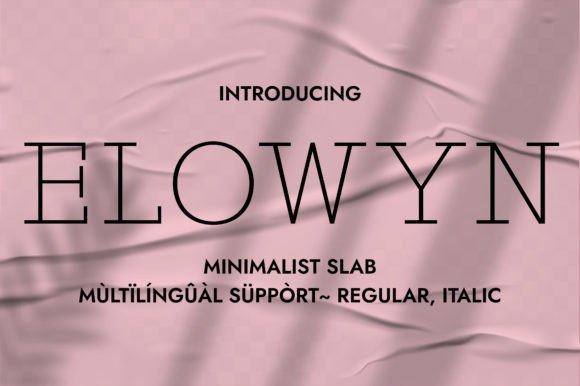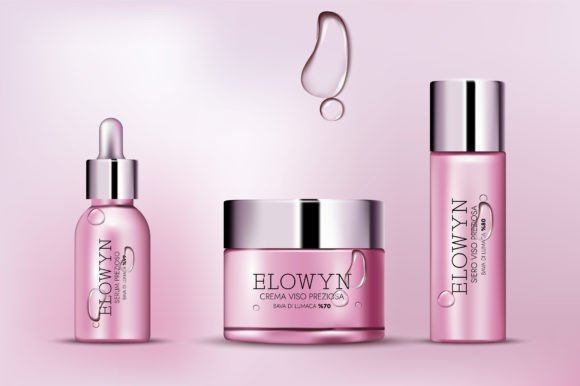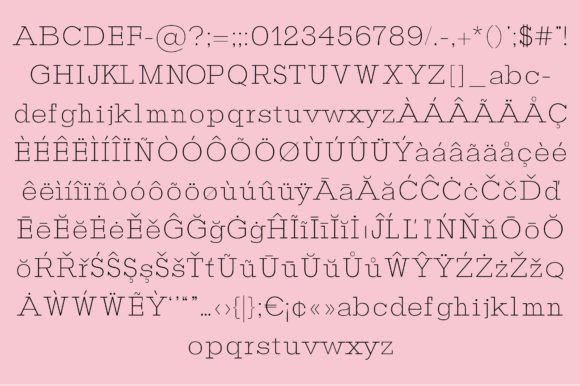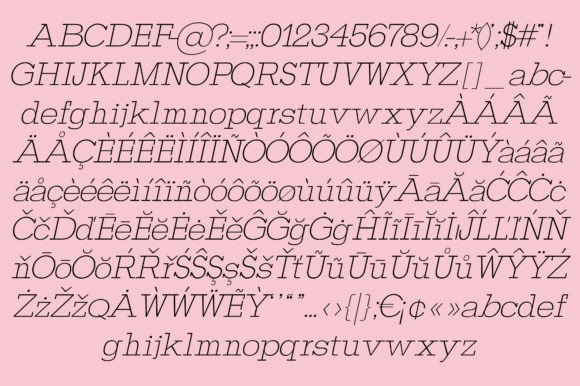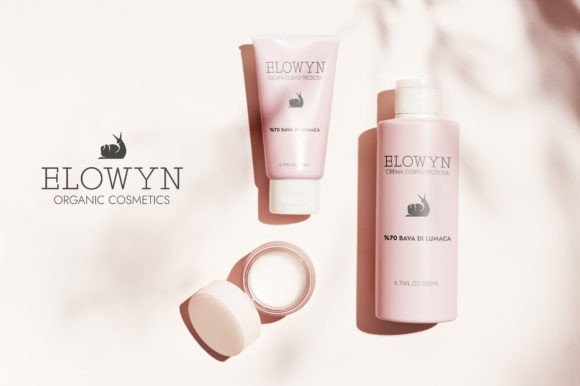
Elowyn
Elowyn: A Romantic and Delicate Minimalist Typeface
Elowyn is a romantic, delicate and clean minimalist typeface. It is perfect for packaging design, perfume design, titling, cosmetics design, website banners, and many more. Add it confidently to your font library, and you will notice how fast it becomes one of your fundamental design choices.
Key Features of Elowyn
• Romantic Design: Offers a soft and elegant look suitable for various applications.
• Delicate Aesthetic: Brings a touch of refinement and grace to designs.
• Clean Minimalism: Features a streamlined appearance for modern, uncluttered designs.
• Versatile Application: Ideal for a wide range of design projects across different industries.
Ideal Uses for Elowyn
Elowyn’s unique characteristics make it particularly well-suited for:
When incorporating Elowyn into your designs, consider these tips:
• Use for headlines or short blocks of text to showcase its romantic and delicate features.
• Experiment with different sizes to highlight the font’s minimalist charm.
• Utilize its clean aesthetic to create designs that evoke elegance and sophistication.
Elowyn is an excellent choice for designers looking to add a romantic and delicate minimalist typeface to their typographic toolkit. Its ability to bring refinement and grace to various design projects makes it stand out in the world of typography. Whether you’re working on packaging design, creating perfume branding, or developing content for cosmetics and fashion industries, Elowyn offers the perfect blend of elegance and modern minimalism.
Furthermore, Elowyn’s unique design allows it to shine in various contexts where a touch of romance and delicacy is desired. From website banners to wedding stationery, this font can elevate your projects with its distinctive style. Its clean yet romantic appearance works particularly well in designs that aim to convey a sense of sophistication and contemporary elegance.
In conclusion, Elowyn is a font that truly captures the essence of romantic minimalism in modern typography. Its versatility across different applications showcases its adaptability to various creative needs. For those looking to add a touch of delicate charm to their work, Elowyn can enhance themed creations with its distinctive style. It’s the perfect choice for designers seeking to make a refined, stylish impact across a wide range of creative projects, especially in industries that value elegance and modern aesthetics.